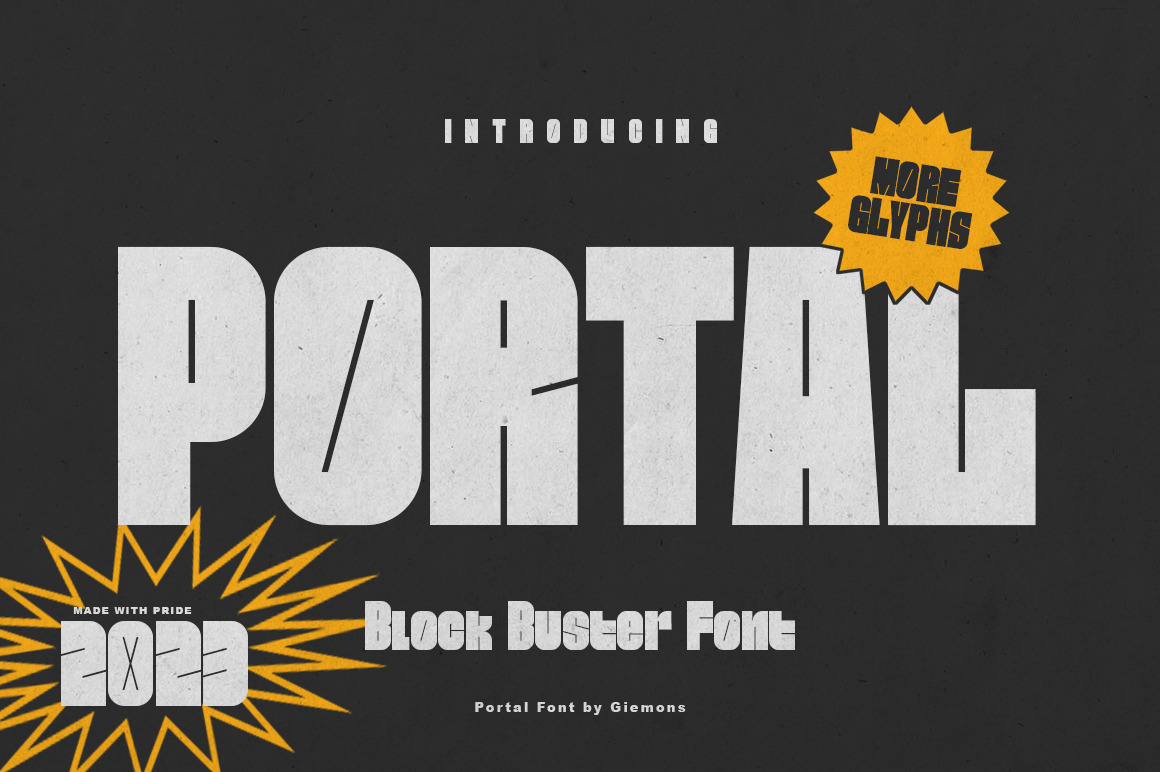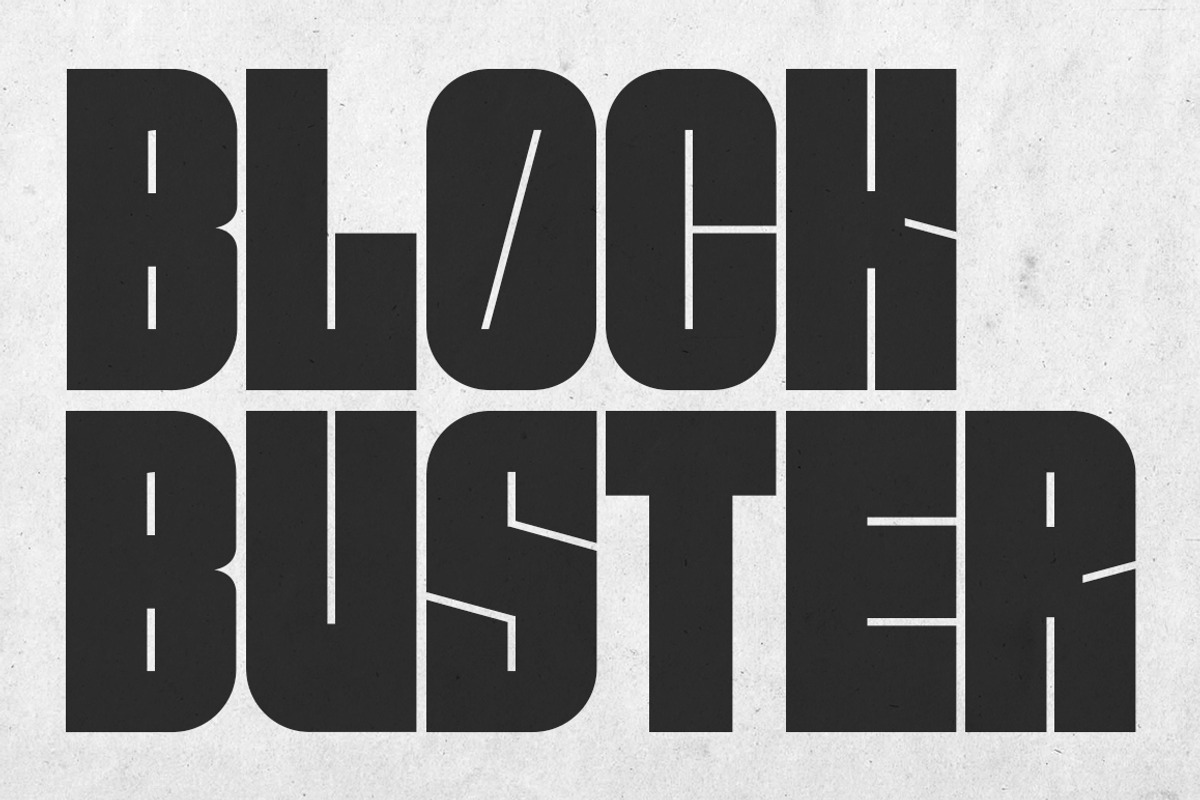
Portal Font
a Portal Block Buster Font a BOLD font. this font include multi language "latin". awesome use for tittle cover book, brand, magazine, catalog brand, any many more.